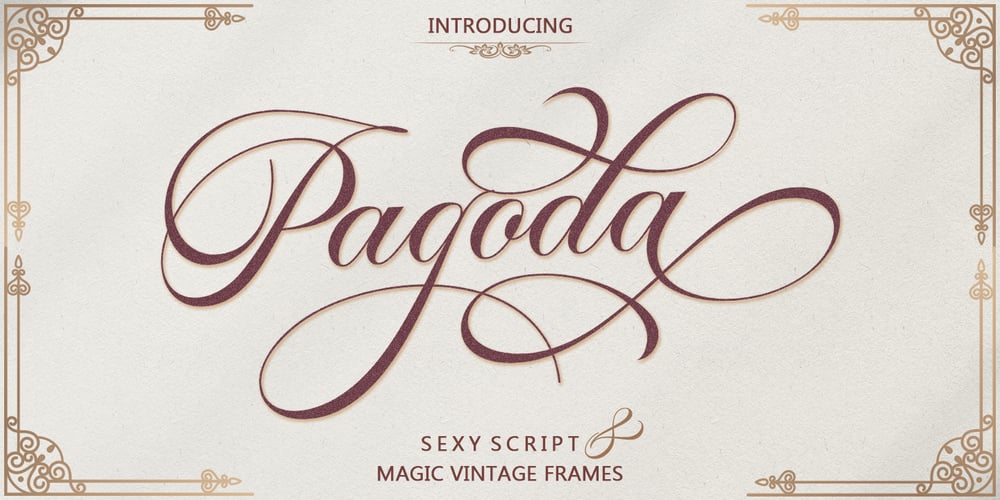
Pagoda Script
Pagoda Script font
Pagoda Script Font Family was designed by T Haikal Budillah and published by HKL Studio. Pagoda Script contains 1 styles and family package options. Pagoda ScriptIs a calligraphy Vintage script font that comes with beautiful alternate characters. copper plate mix calligraphy with handlettering style. Designed to convey stylish elegance. Pagoda attracts like a typeface that is smooth, clean, feminine, sensual, glamorous, simple and very easy to read.Pagoda Script comes with a Clean and Aged version, beautiful upper and lower case, binding and loved by many finishes. It has Multilingual support (Western European characters) and works with the following languages: English, Danish, Dutch, Estonian, Finnish, French, German, Hungarian, Icelandic, Italian, Norwegian, Polish, Portuguese, Spanish, Swedish.In my example I show how this script can be used. It’s perfect for logos, wedding invitations, alcohol labels, romantic cards, and more.Products include:Clean & Aged Script Versions (TTF) Alternative Upper & Lowercase Styles fastener Recommended for use in Adobe Illustrator or Photoshop. Special features do not work in Microsoft Word.